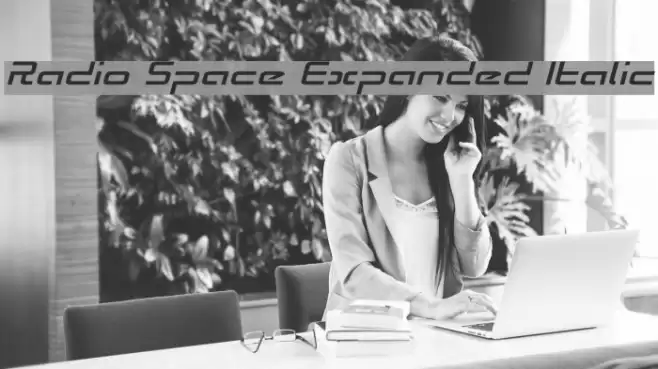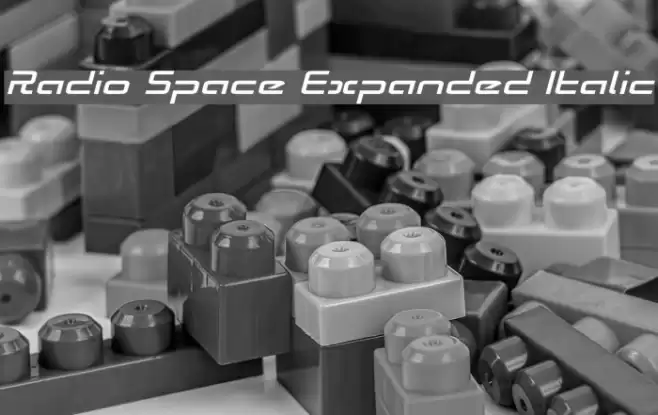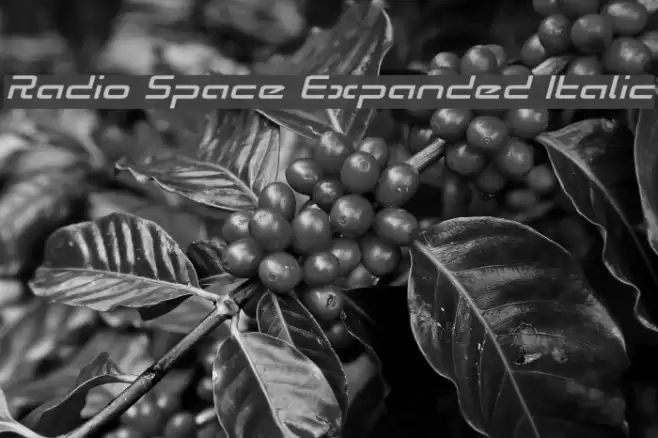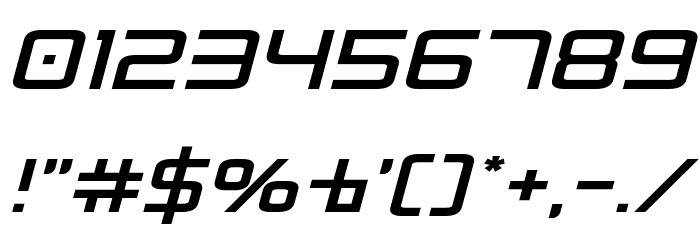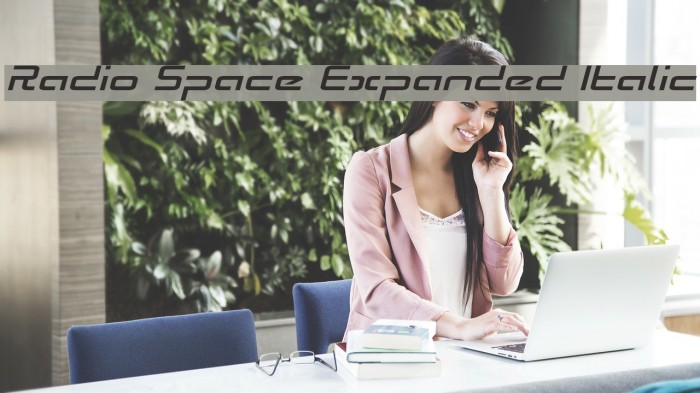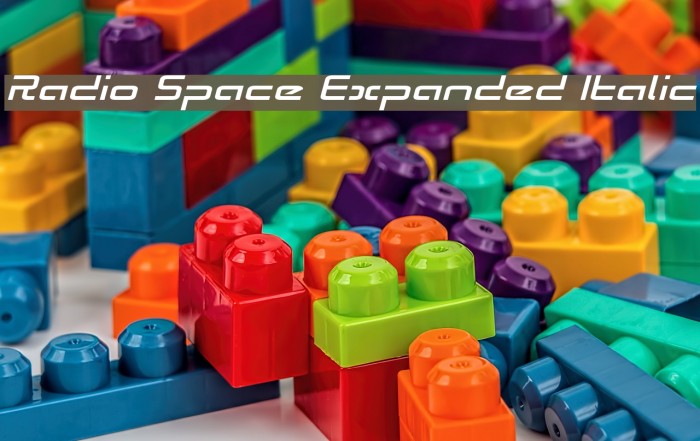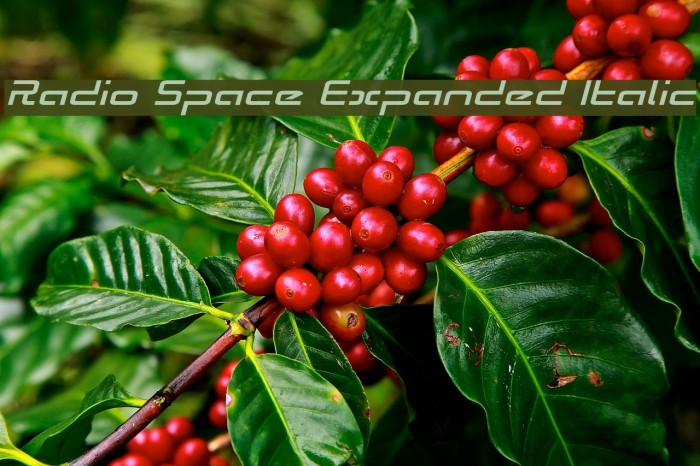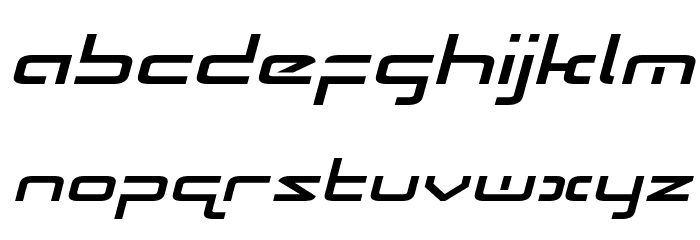
Radio Space Expanded Italic Font
Radio Space Expanded Italic Description
This font presents a futuristic and dynamic style, characterized by its expanded and italicized form. The letters are sleek and angular, with a consistent slant that gives a sense of motion and speed. The uppercase and lowercase characters maintain a uniform width, contributing to a cohesive appearance. The numerals and special characters are designed to match the overall aesthetic, with sharp edges and a modern flair. This font's unique style makes it suitable for projects that require a contemporary and energetic look.
A futuristic, expanded italic font with a sleek and dynamic style from Uncategorized fonts.
- Proposed Projects: Ideal for sci-fi themed designs, technology branding, modern posters, and digital media.